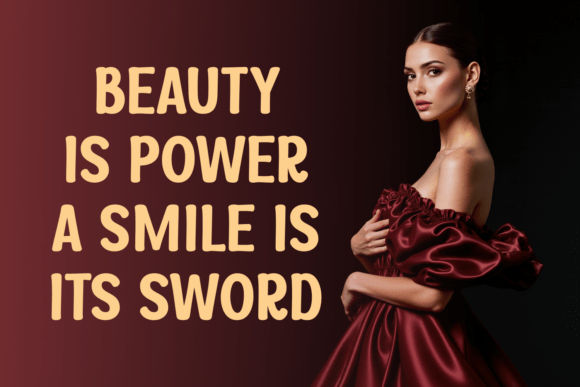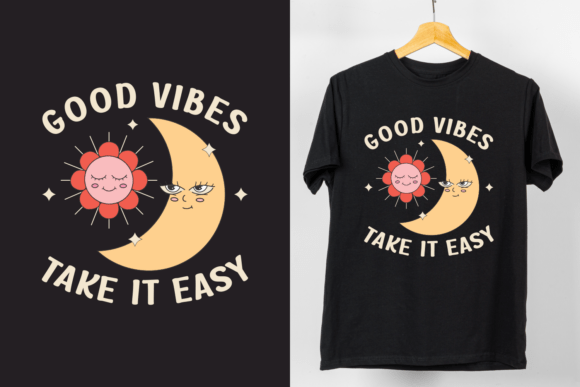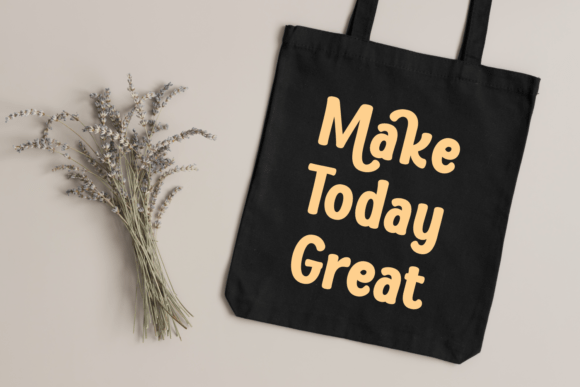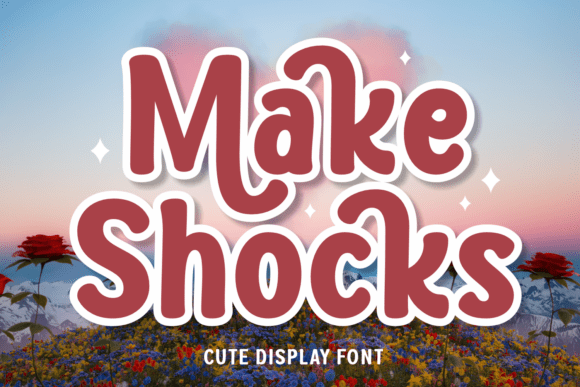
Introduction to Make Shocks Font
🌟 Make Shocks (Cute Display Font) Get ready to charm your audience with Make Shocks, a delightful, Cute Display font bursting with personality and fun.
Defined by its extra-thick, rounded contours and bouncy, bubblegum aesthetic, this typeface immediately evokes a feeling of cheerful nostalgia and playful energy The Make Shocks font is an excellent choice for children’s packaging, playful apparel designs, fun YouTube thumbnails, vibrant social media titles, and engaging educational materials.
Why Choose Make Shocks Font?